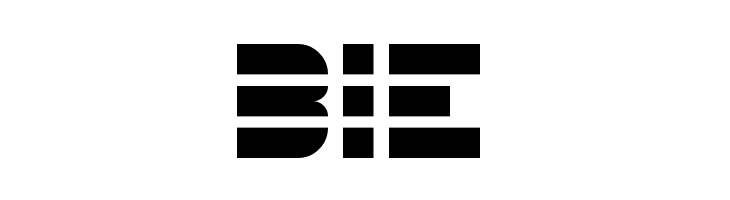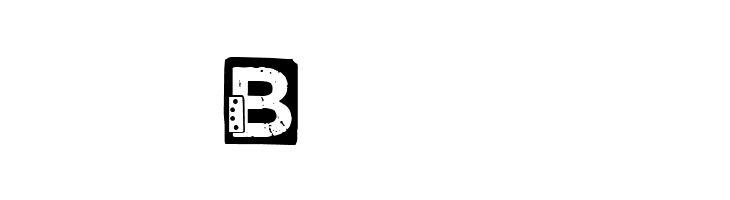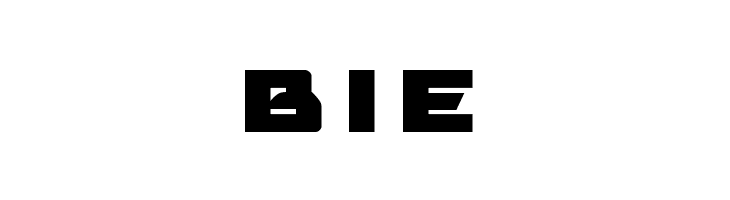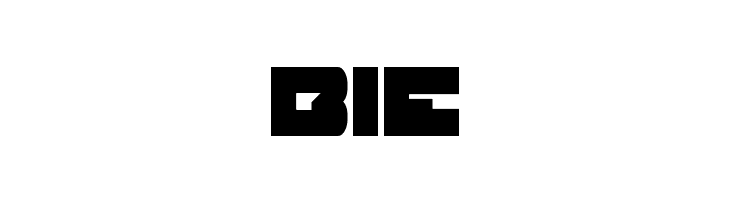
A bold, geometric stencil font with an industrial and modern aesthetic.
A bold, industrial font with punk and cyborg influences.
A bold, stencil-style font with high contrast and geometric shapes.
A bold, angular font with an industrial, Eastern Bloc aesthetic.
A bold, stencil-style font with geometric shapes and high contrast, ideal for impactful headlines.
A bold, distressed font with a rugged, industrial aesthetic.
A bold, geometric font with a futuristic and industrial aesthetic.
A bold, geometric, and condensed font with a futuristic style.
A bold, industrial font with a halftone effect and strong visual impact.